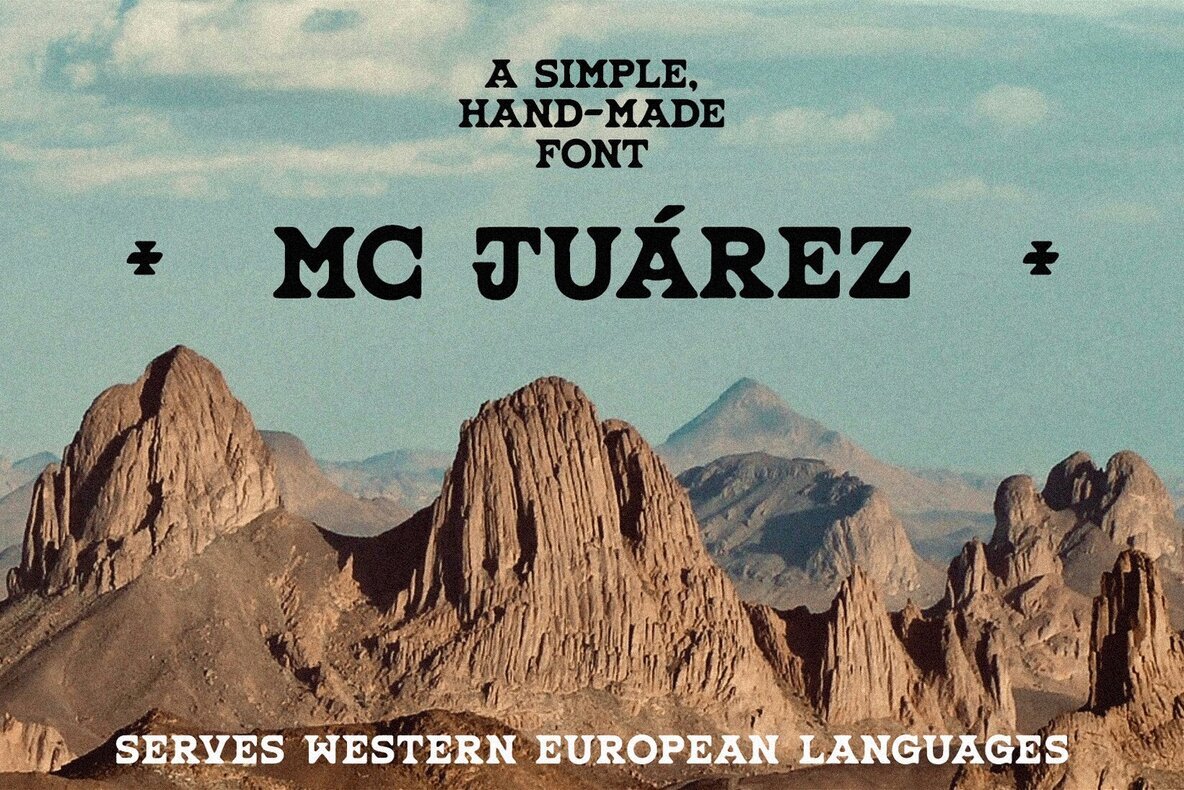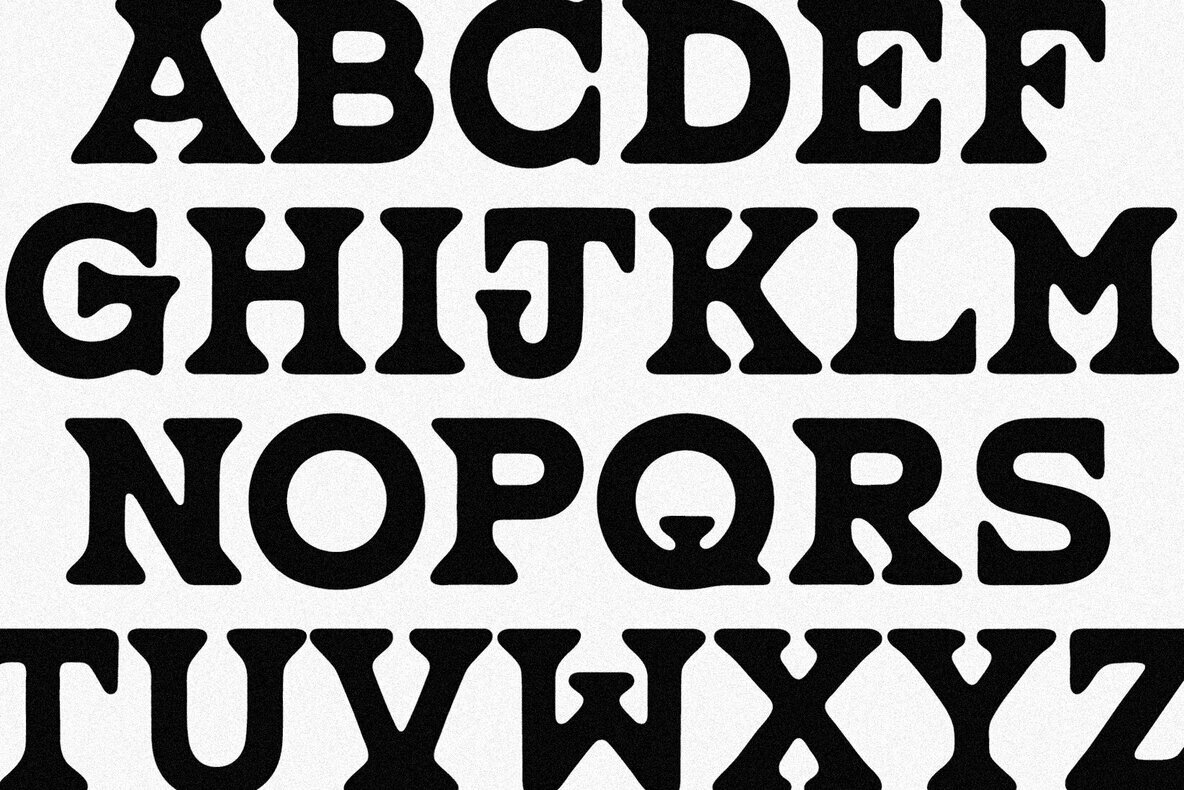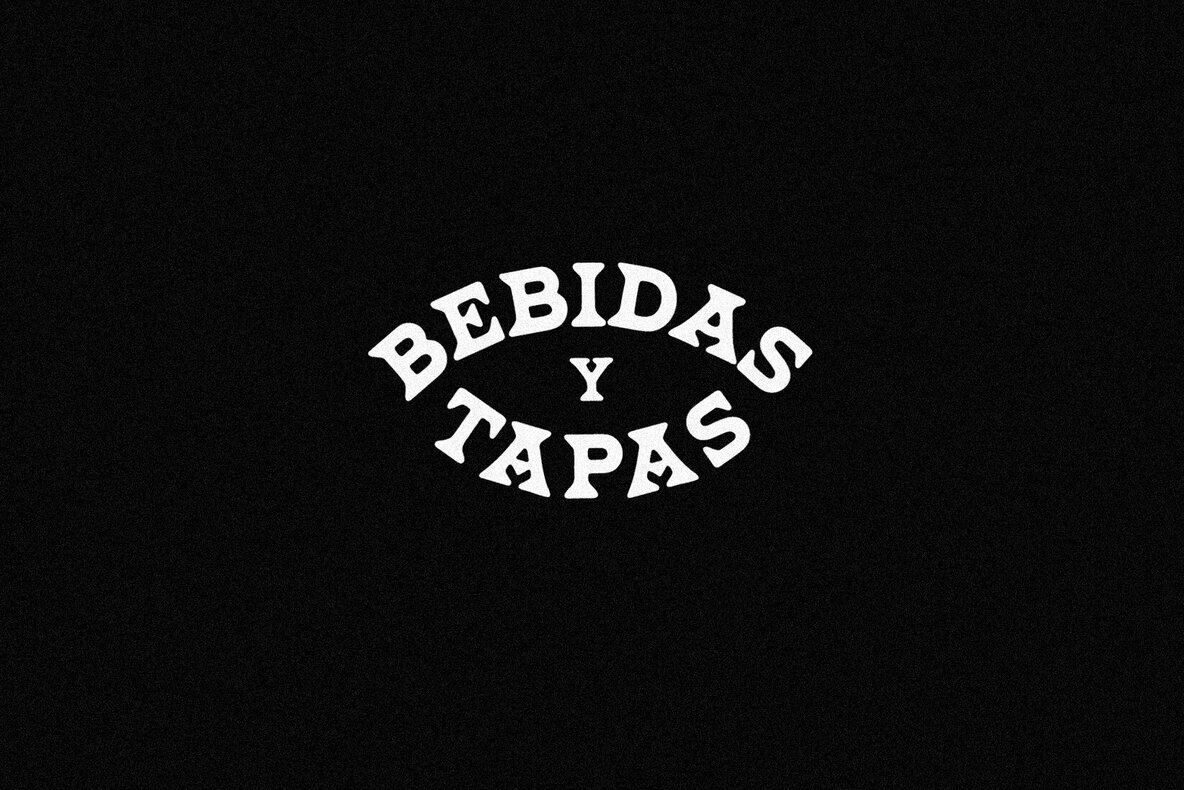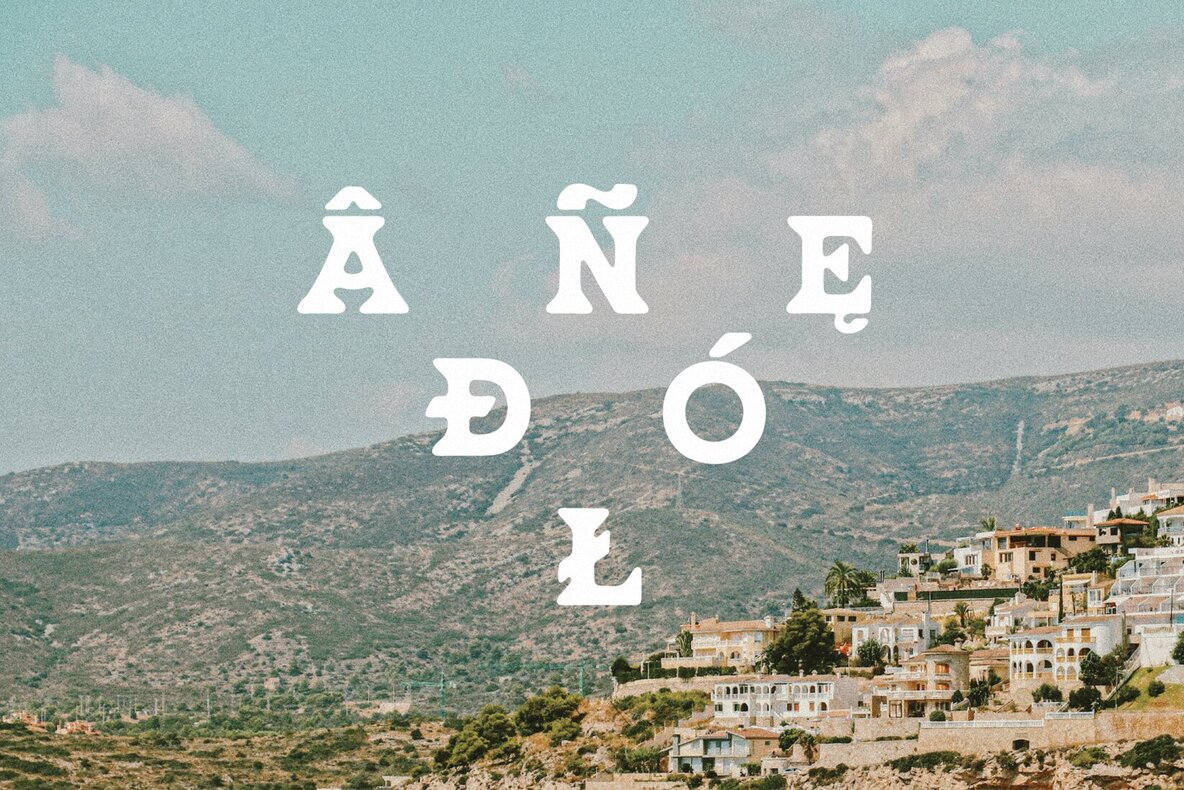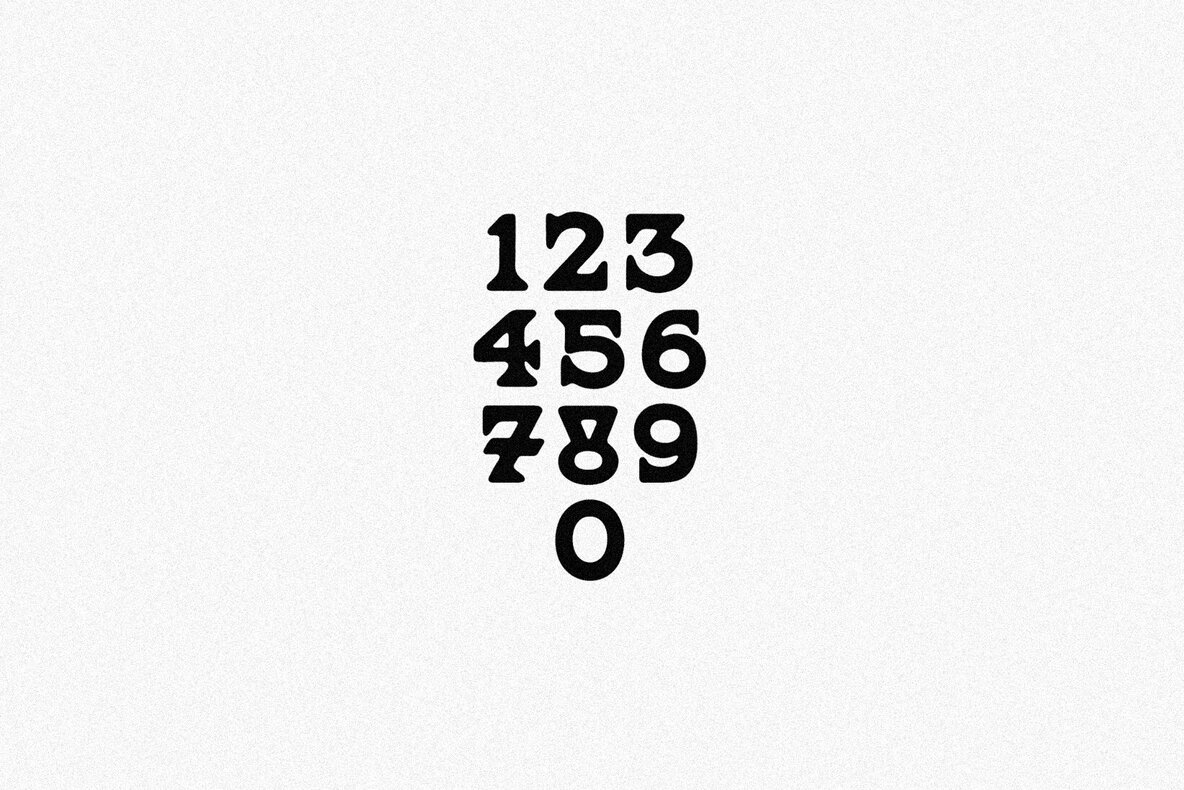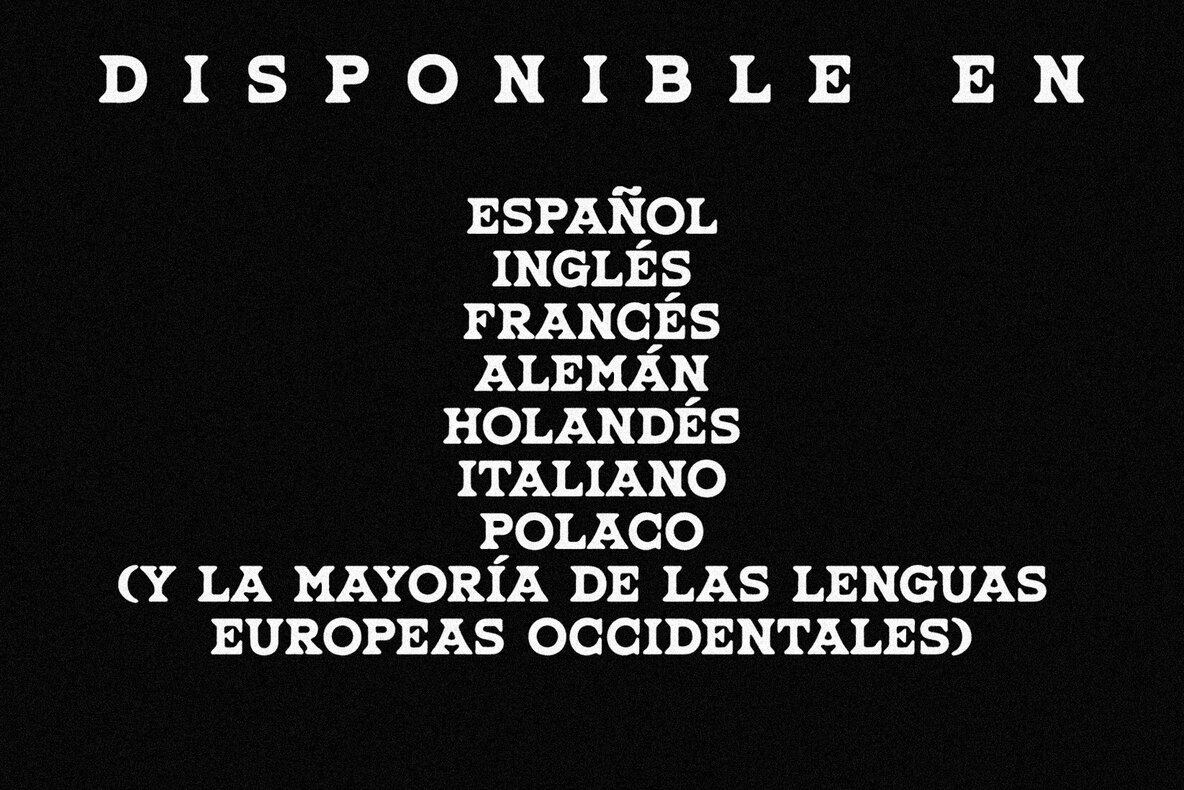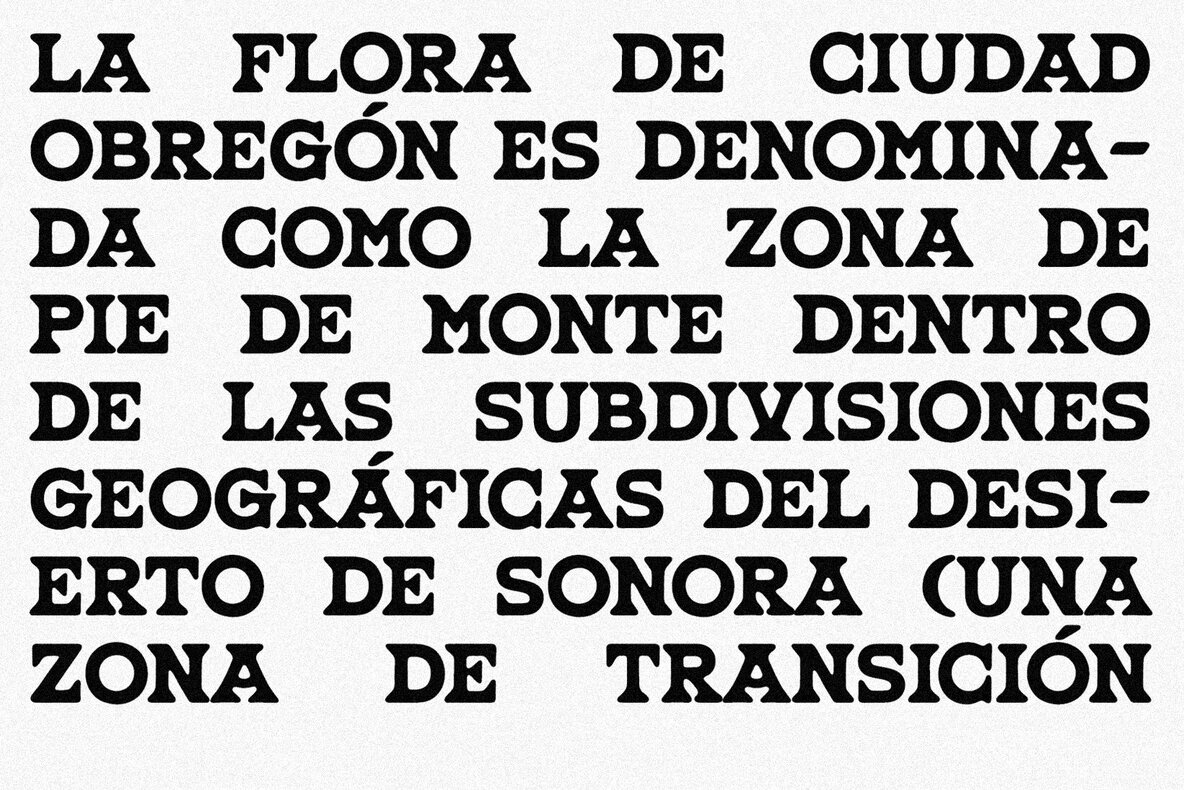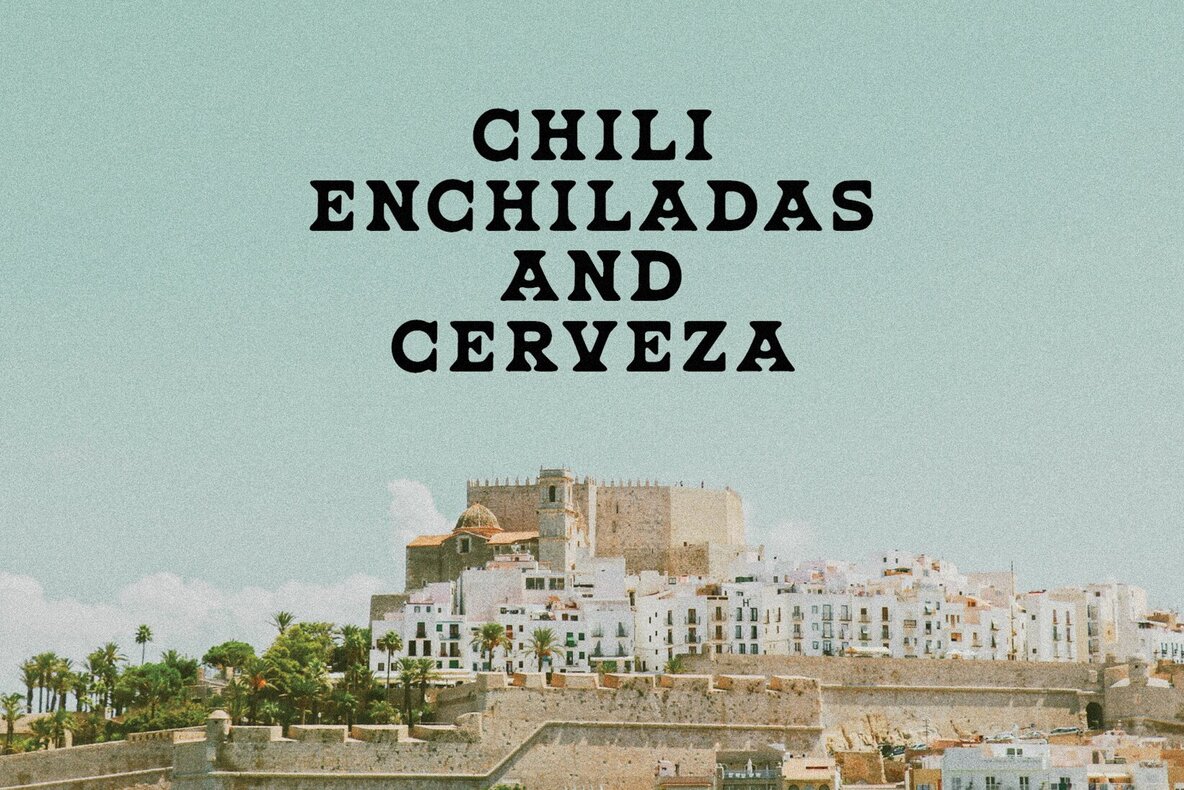
MC Juarez Font
MC Juarez
This bold display font is characterized by its chunky, oversized letterforms and playful curves, making it ideal for creating eye-catching headlines and posters. Its retro-inspired, whimsical style delivers a quirky and energetic vibe perfect for projects seeking a bold, vintage look. Use this font to infuse a fun, cartoonish character into your designs.